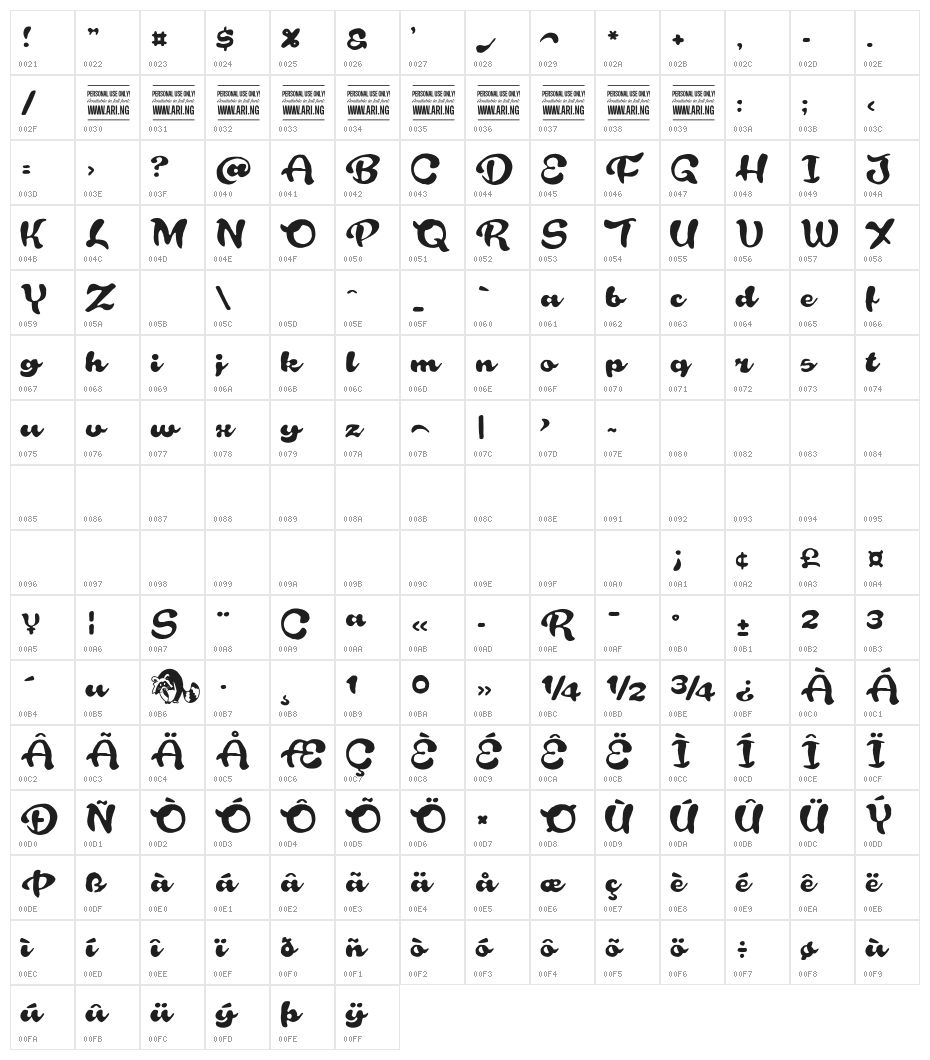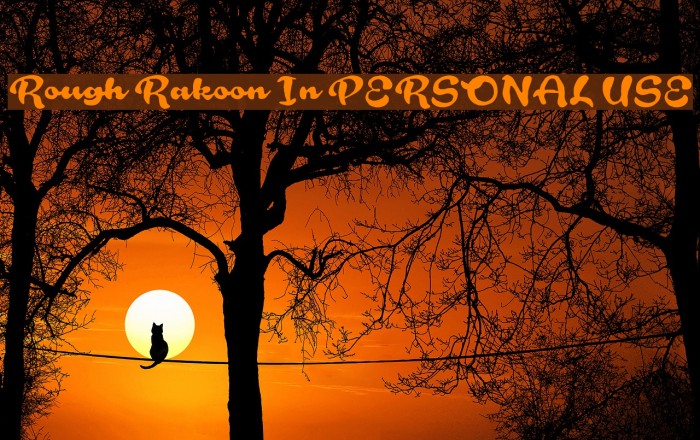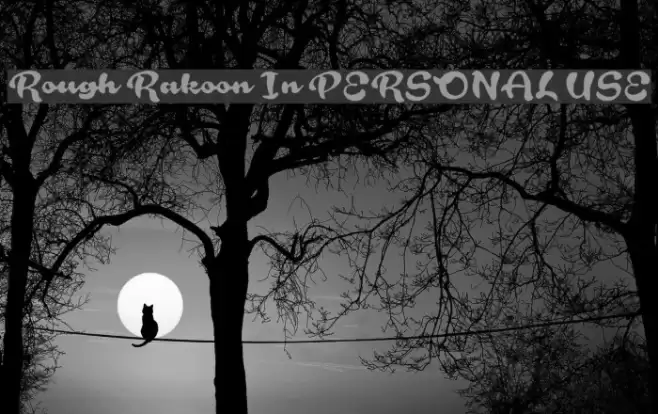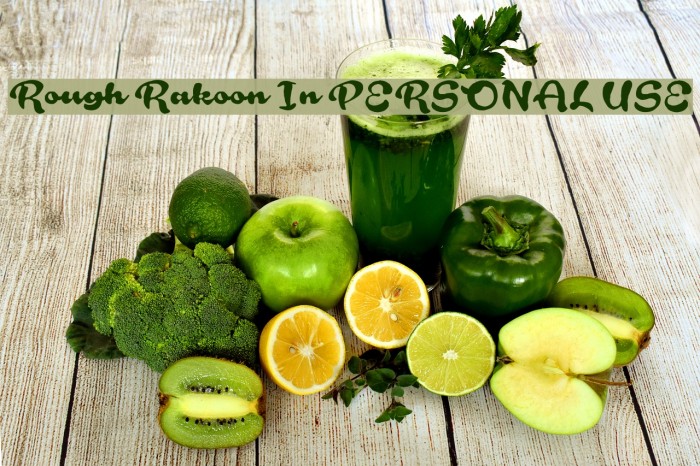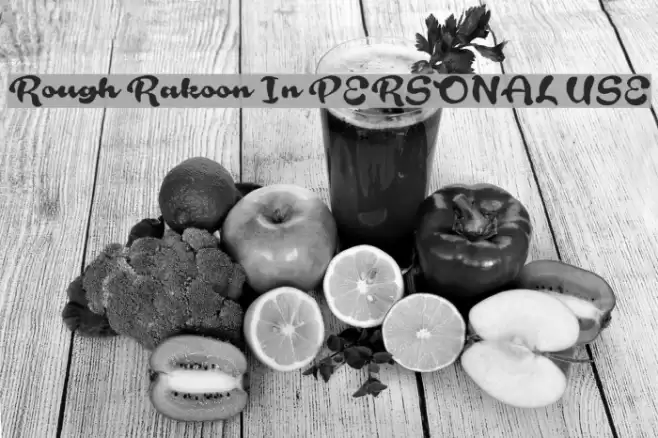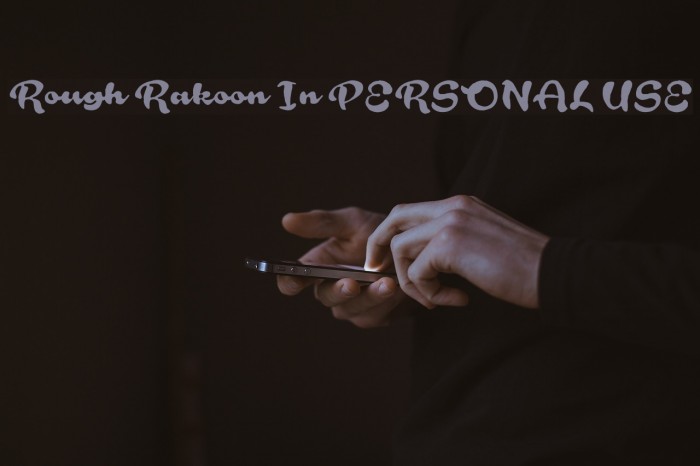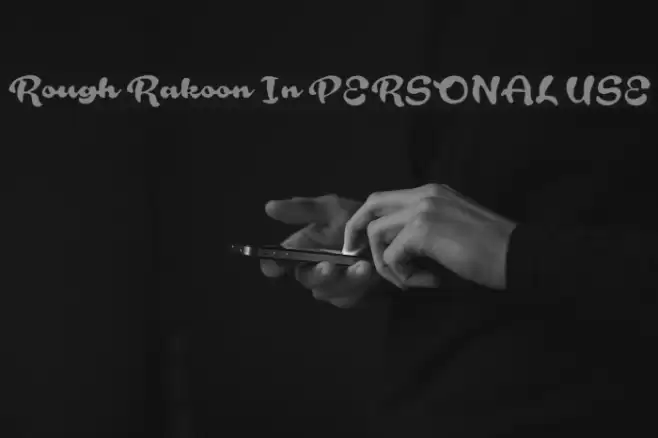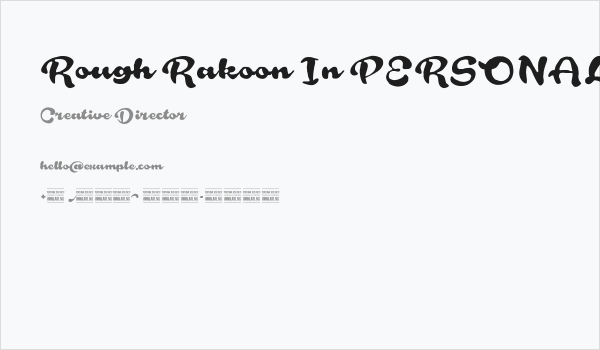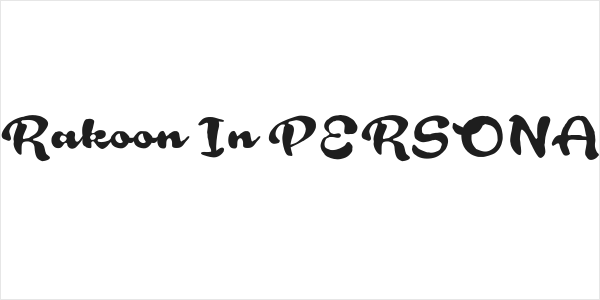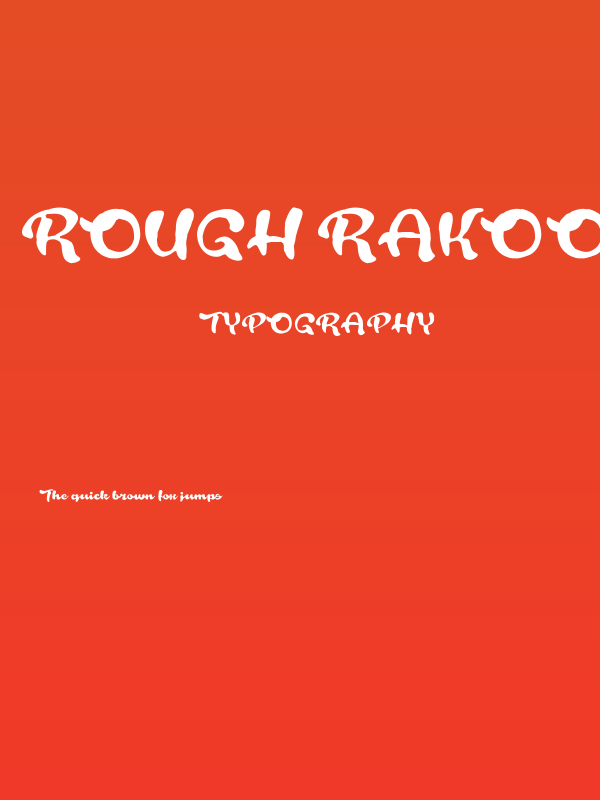
Rough Rakoon In PERSONAL USE Font
Rough Rakoon In PERSONAL USE Description
This font features a bold and playful design with a handwritten style. The characters are rounded and have a fluid, brush-like appearance, giving them a dynamic and energetic feel. The uppercase and lowercase letters maintain a consistent style, with a slightly whimsical touch that adds personality. The numbers and special characters follow the same aesthetic, ensuring uniformity across all elements. The font's boldness makes it stand out, while the smooth curves and connected strokes provide a sense of movement and creativity.
| Proposed Projects | Ideal for creative projects such as posters, invitations, and branding materials that require a lively and unique touch. |